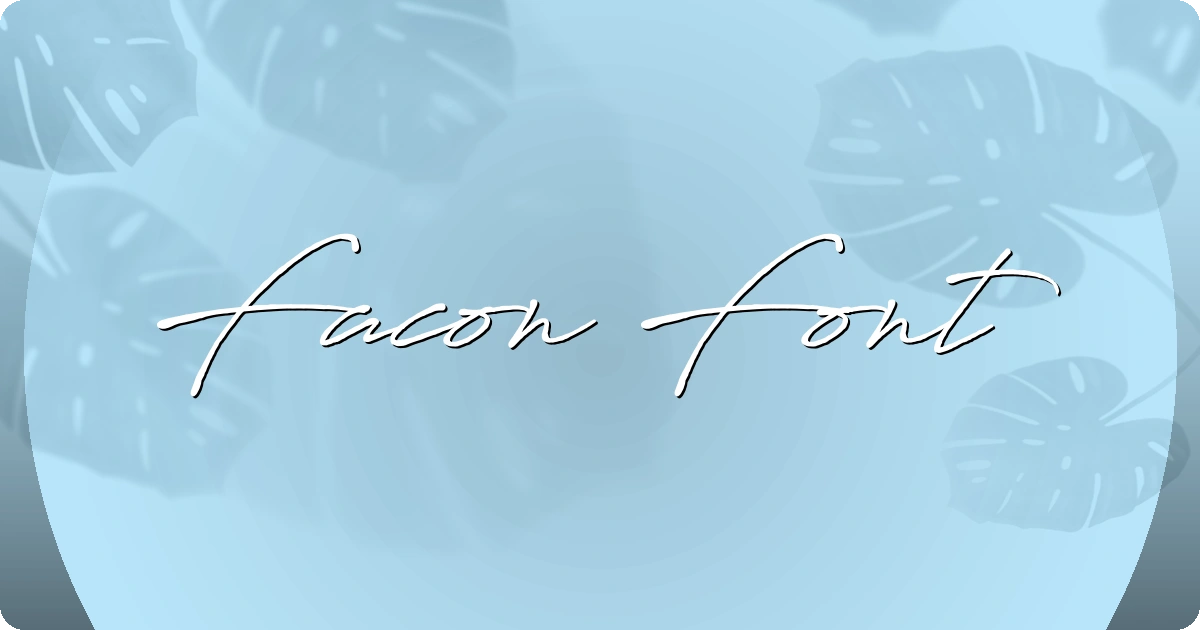
Today we are going to introduce a modern look Facon Font that comes in a display font family. It has great spacing and is unique that can be used in many international projects. This typeface has a decorative style with extraordinary texture.
This stylish typeface Facon Font was designed by famous graphic designer Alejo Bergmann. He is a created designer who made many famous fonts. It was created in capital letters, small letters, symbols, punctuation, numbers, and digits.
You can see a picture of Facon Font that has a unique style with extraordinary text. It will give an aesthetic look to your projects.
As Facon Font has a traditional style that makes it more attractive and unique. The value of this typeface is increasing day by day as it has a modern and eye-catchy texture. It is a part of the display font family that can be used in every kind of screen project whether it’s a small screen project or large screen project.
What is the Facon Font?
It is a modern look typeface that belongs to a display font family. It has unique three style and uncoutable amaizng feaures.
Who designed the Facon Font?
This stylish typeface Facon texture was designed by famous graphic designer Alejo Bergmann.